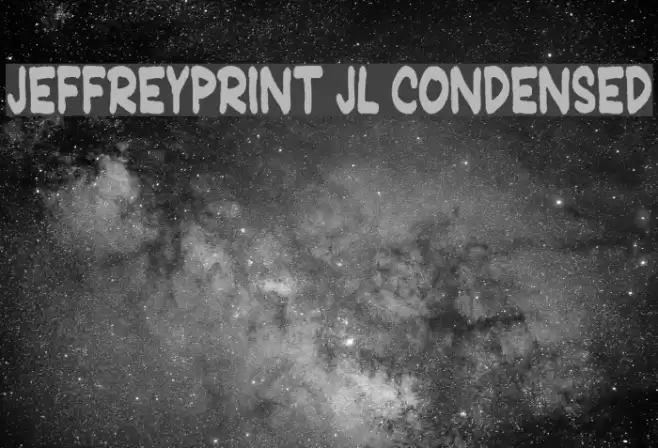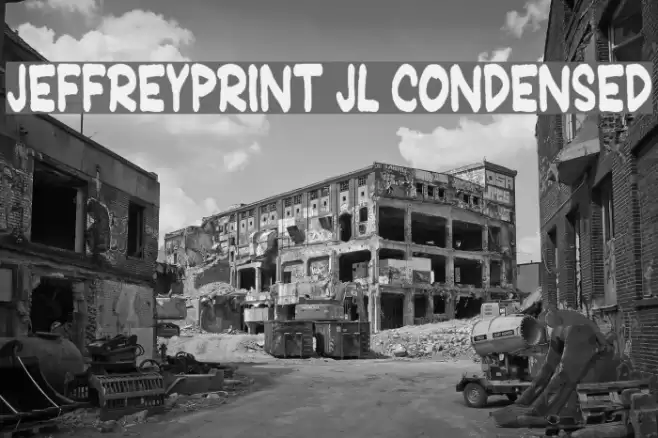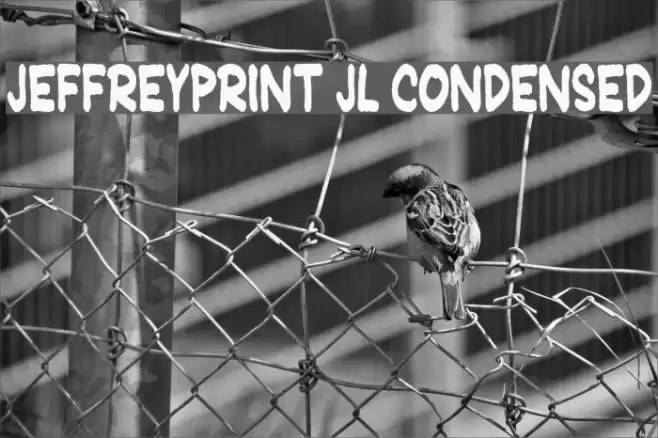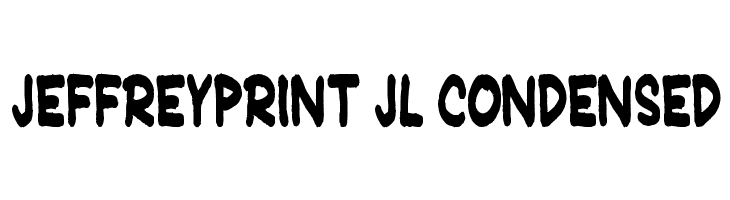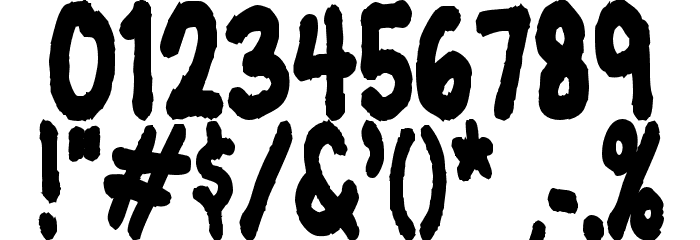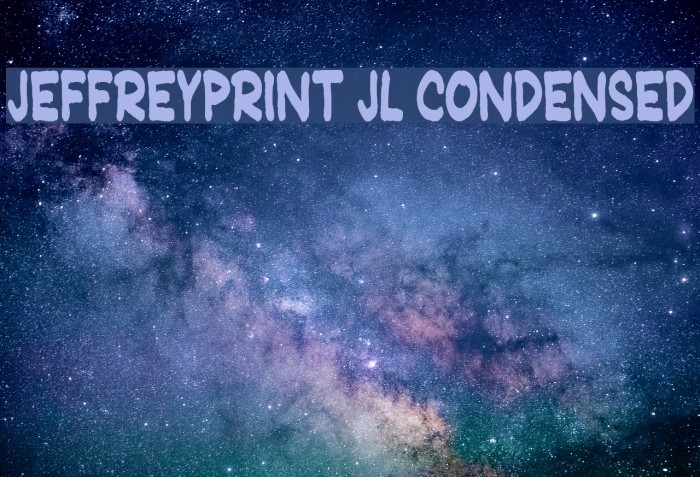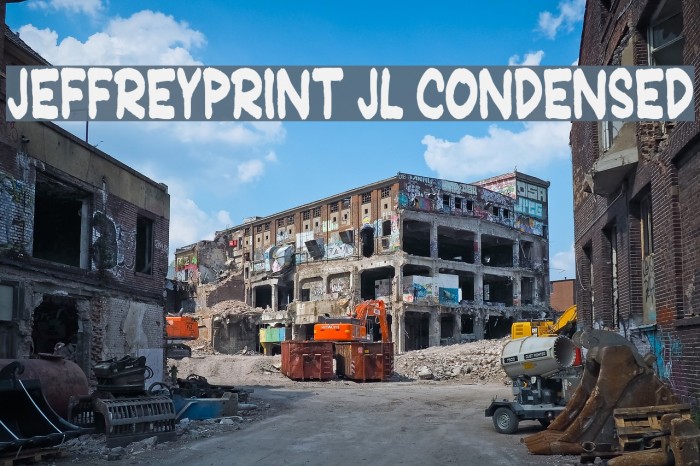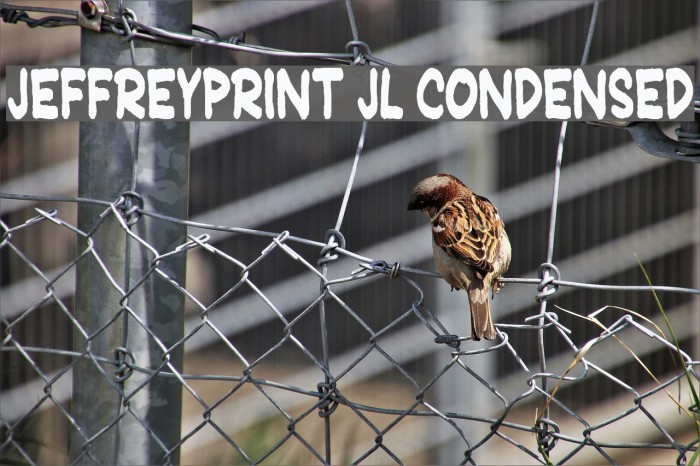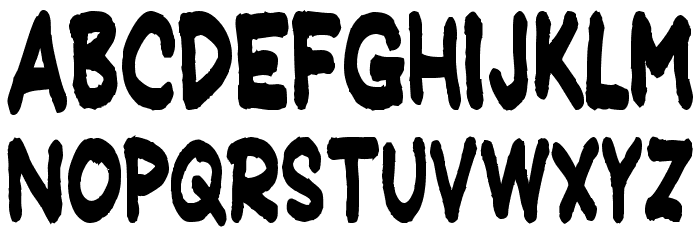
JeffreyPrint JL Condensed Font
JeffreyPrint JL Condensed Description
This font features a bold and condensed style with a hand-drawn appearance. The characters are thick and rounded, giving them a playful and informal look. The uppercase and lowercase letters maintain a consistent width, contributing to a cohesive visual flow. The numerals and special characters share the same boldness, ensuring uniformity across all elements. The font's organic and slightly irregular shapes add a touch of uniqueness, making it stand out in creative projects.
A bold, condensed, hand-drawn font with a playful and informal style from Capitals fonts.